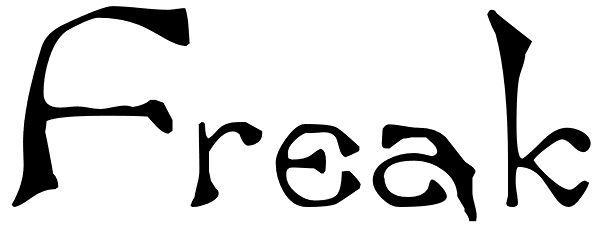
Freak
Freak was originally released by The Great Western Type Foundry in 1889. According to Maurice Annenberg, Great Western became Barnhart Brothers & Spindler when the Barnhart brothers bought out the Toepfer family in 1868.The plant superintendent...